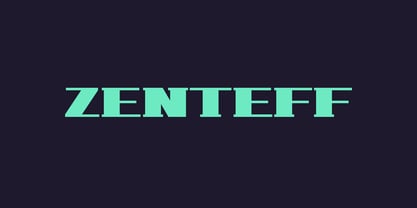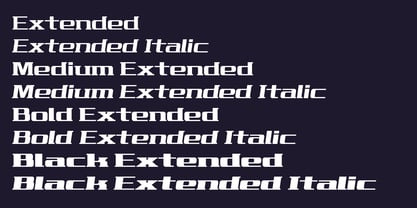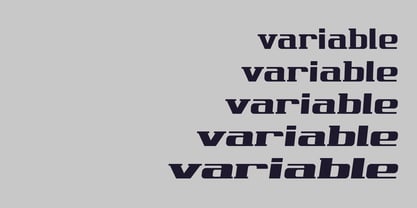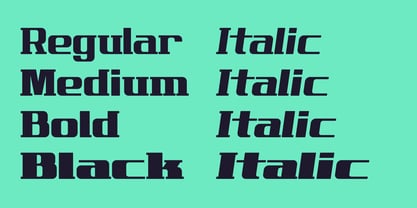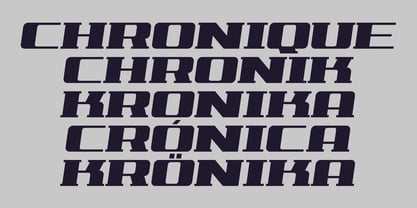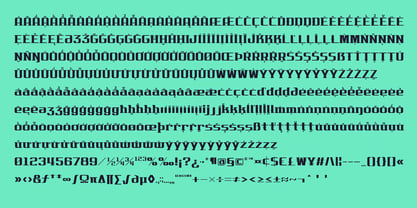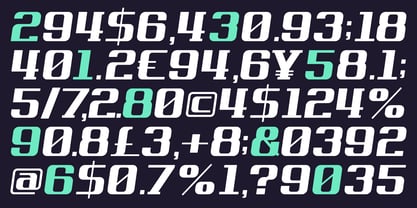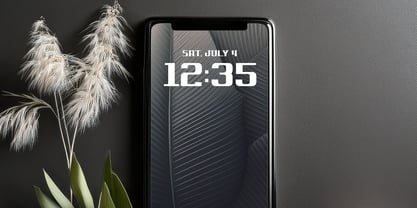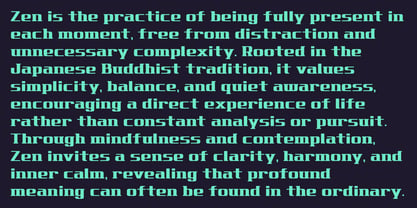
Zenteff
A família de fontes Zenteff foi desenhada por Taka Ikari e publicada pela Outerend. Zenteff contém 17 estilos e opções de pacote familiar. Saiba mais sobre esta família
Zenteff is a bold serif display typeface that blends modern confidence with a subtle retro character. Designed for impactful headlines, branding, packaging, editorial layouts, and posters, its strong letter forms and generous proportions create a commanding presence while maintaining a soft, approachable impression.
Balancing geometric structure with gently rounded details, Zenteff feels contemporary yet familiar. Its thick strokes and carefully crafted curves give it warmth without sacrificing clarity, making it equally suited for expressive branding and striking display typography.
The family includes 17 styles: Regular, Medium, Bold, Black, Extended, Medium Extended, Bold Extended, Black Extended, plus matching italics for each style, along with a Variable Font for maximum flexibility. From compact, powerful headlines to wide, attention-grabbing layouts, Zenteff offers a versatile range of weights and widths to adapt to a variety of creative directions.
Whether you're designing a distinctive visual identity, an editorial feature, product packaging, or bold digital graphics, Zenteff delivers a confident voice with a refined, modern aesthetic and a touch of nostalgic charm.